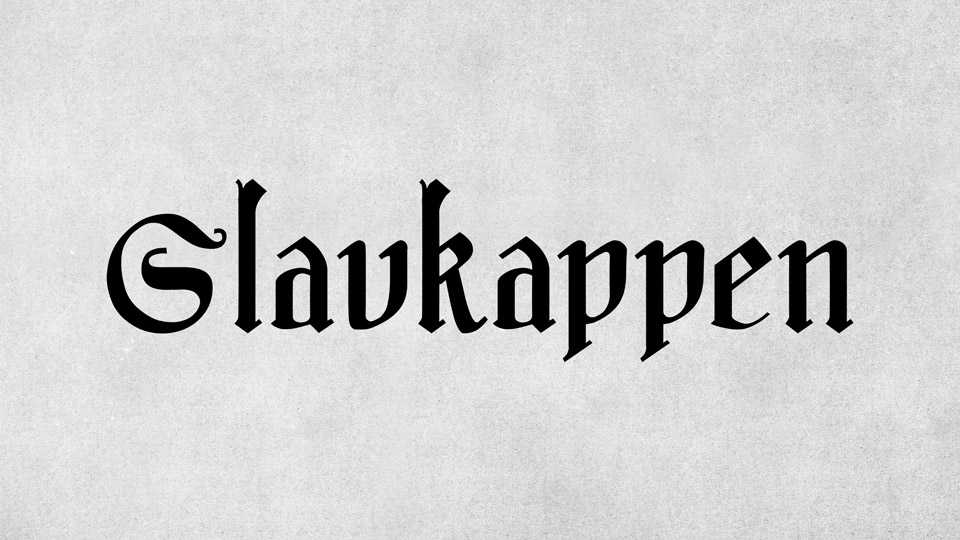
Download Slavkappen font, a hand painted blackletter typeface inspired by Old English style. Slavkappen font perfectly fits for posters, headlines, covers, tattoo and other Gothic design..
Designer: Jason Reed